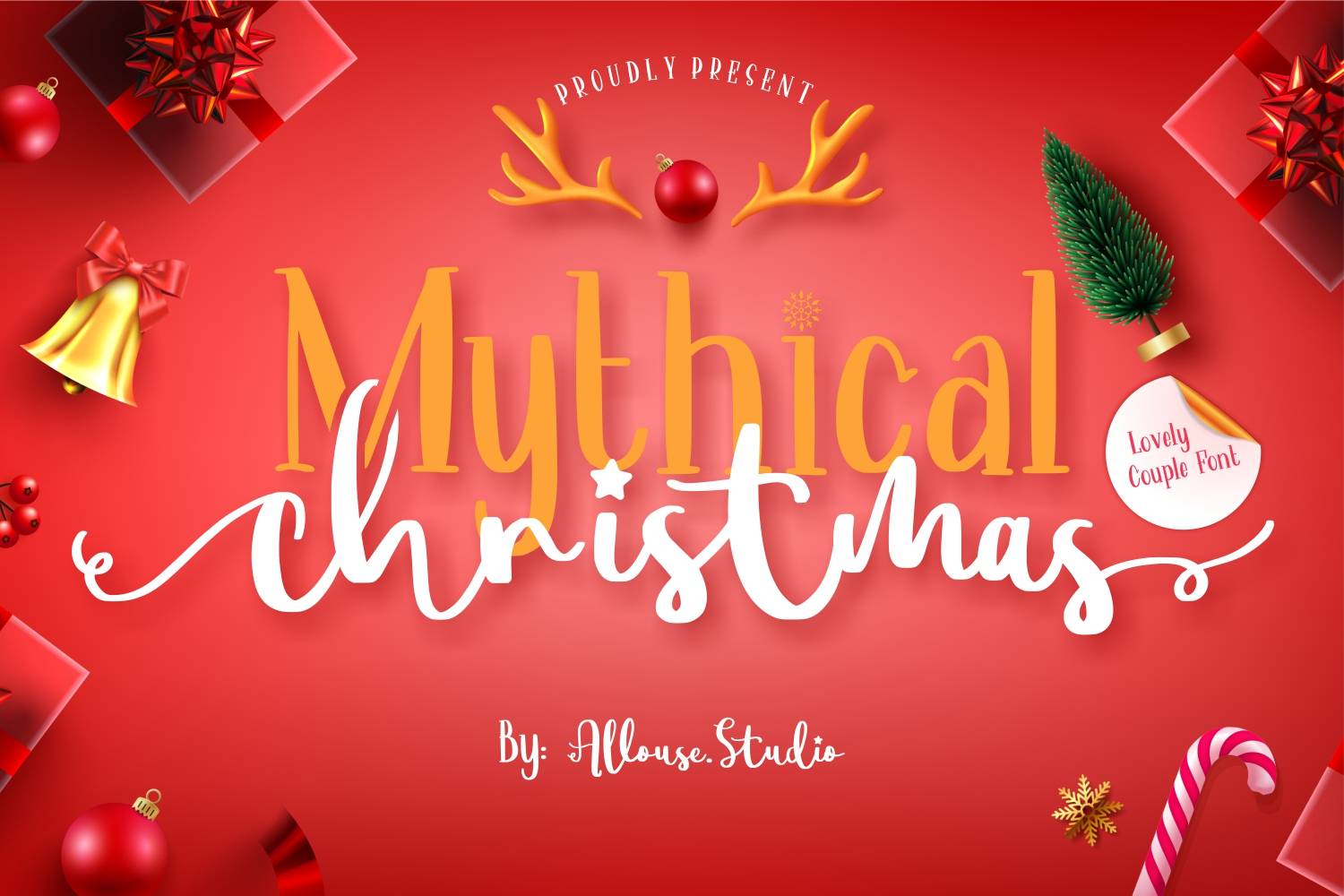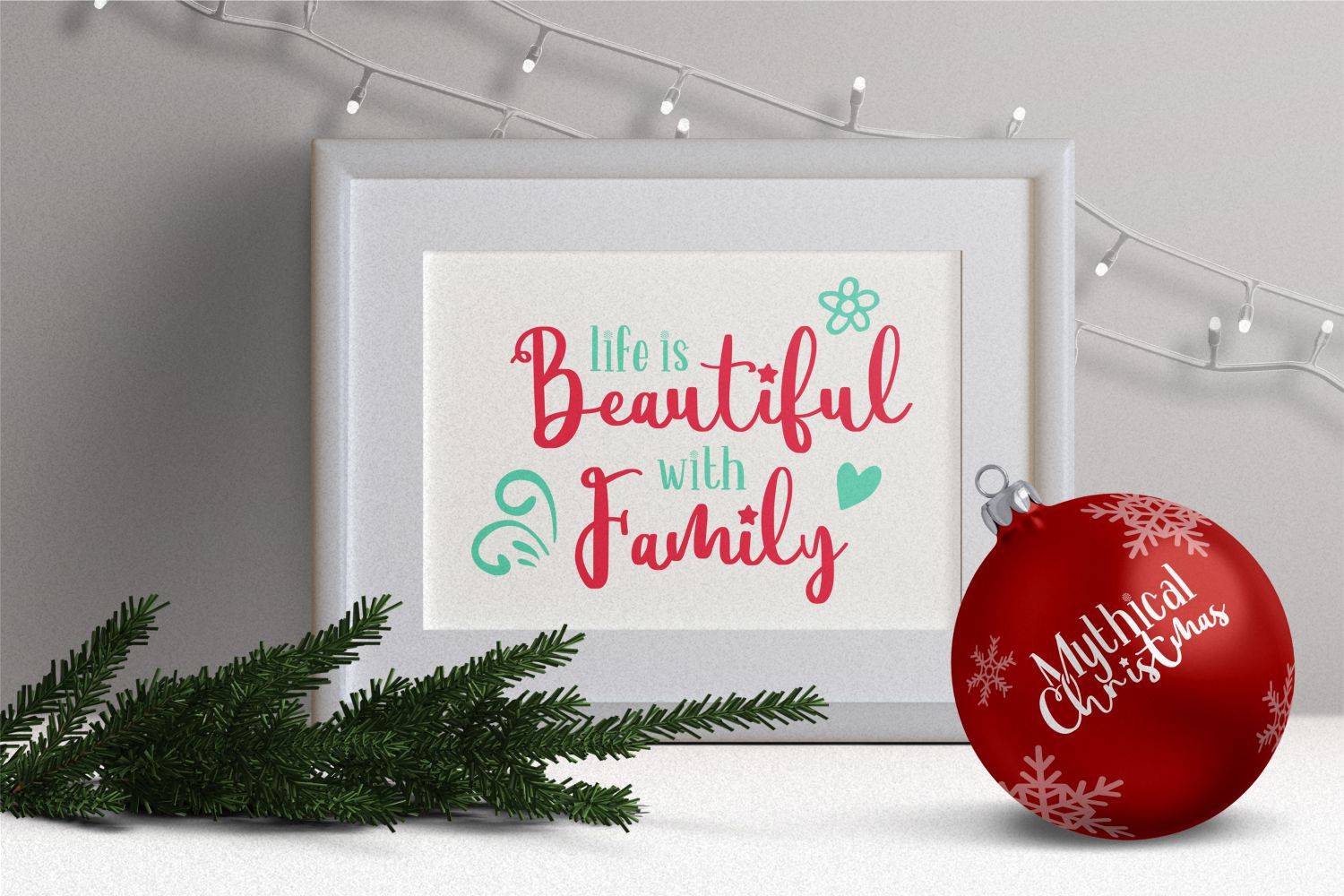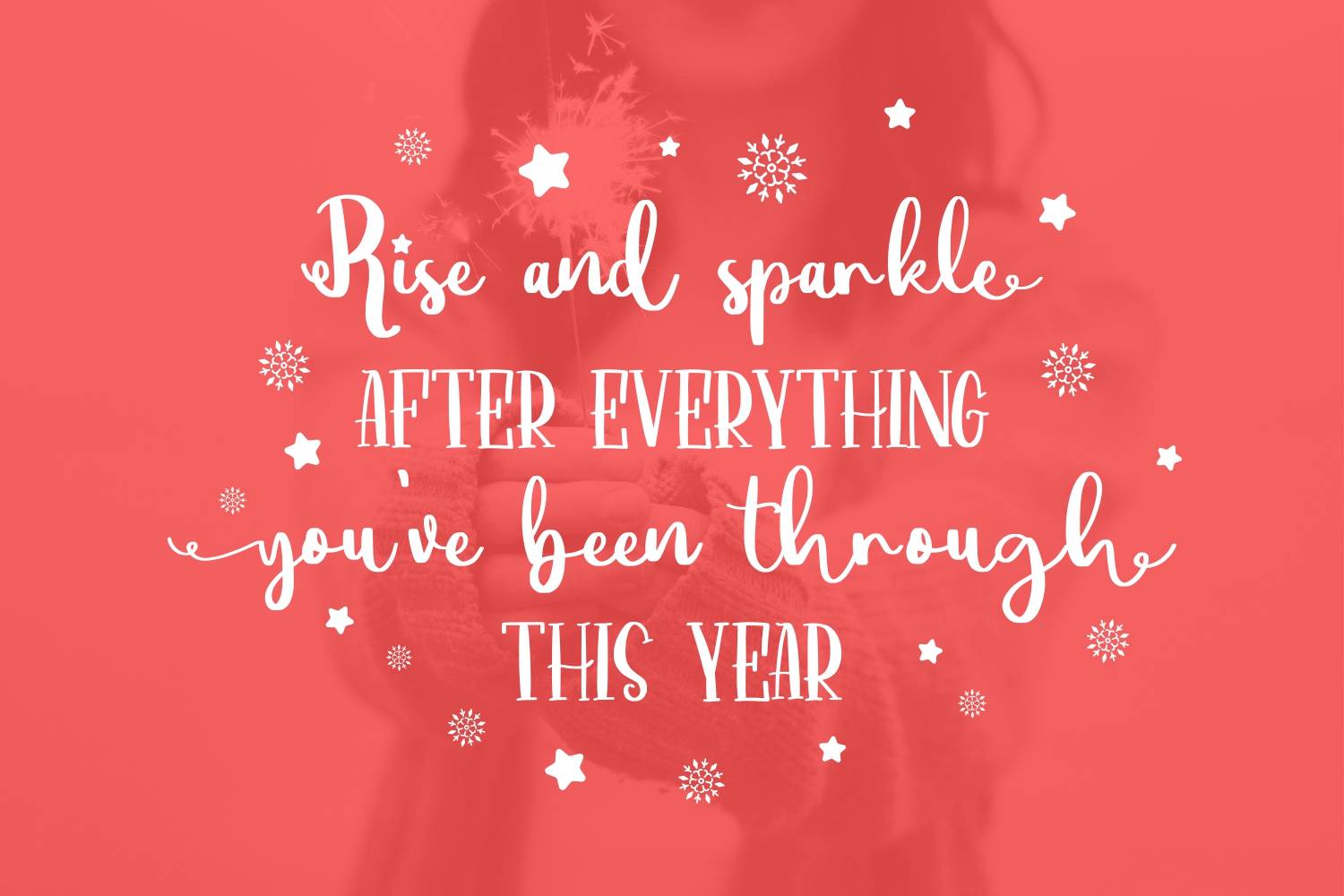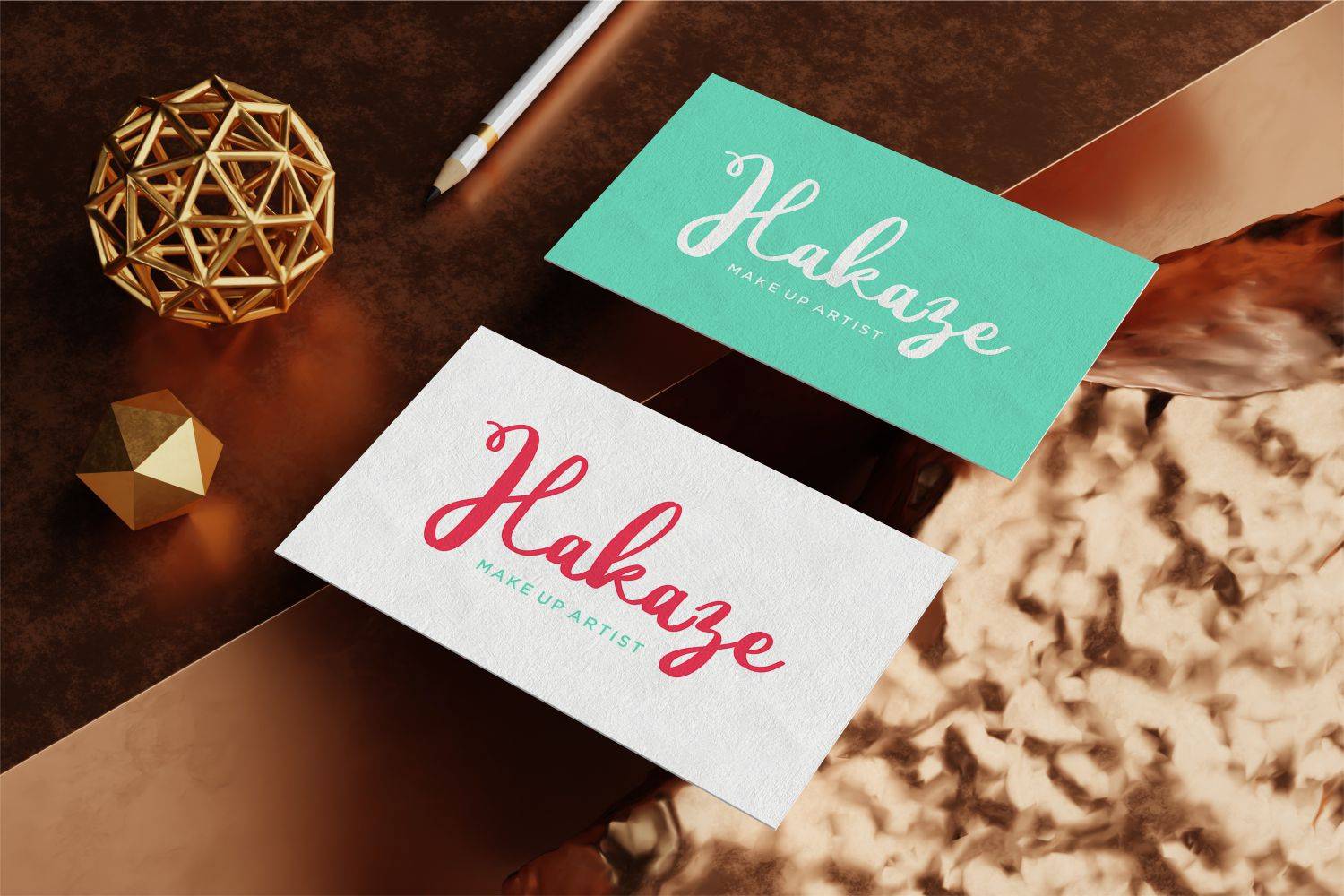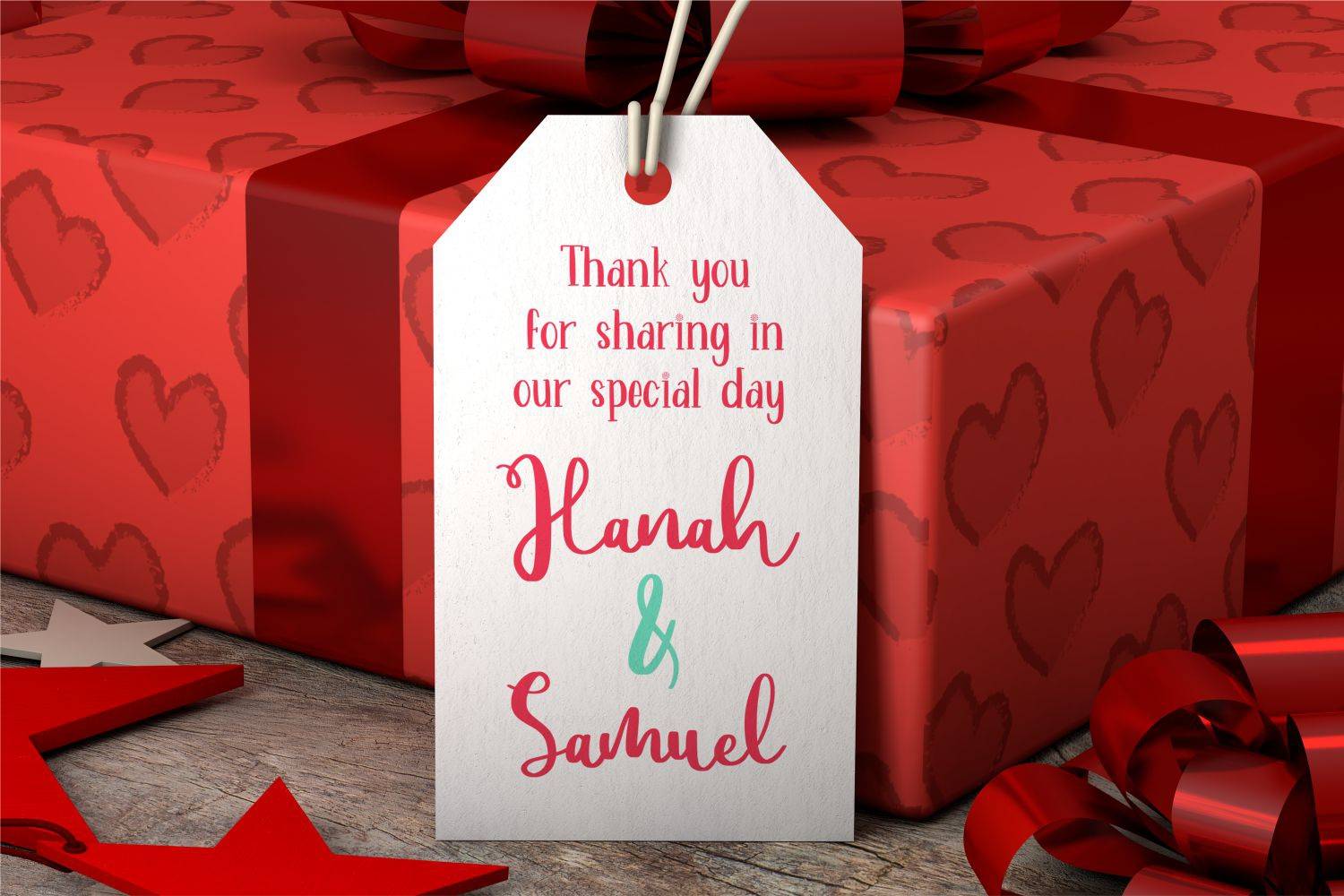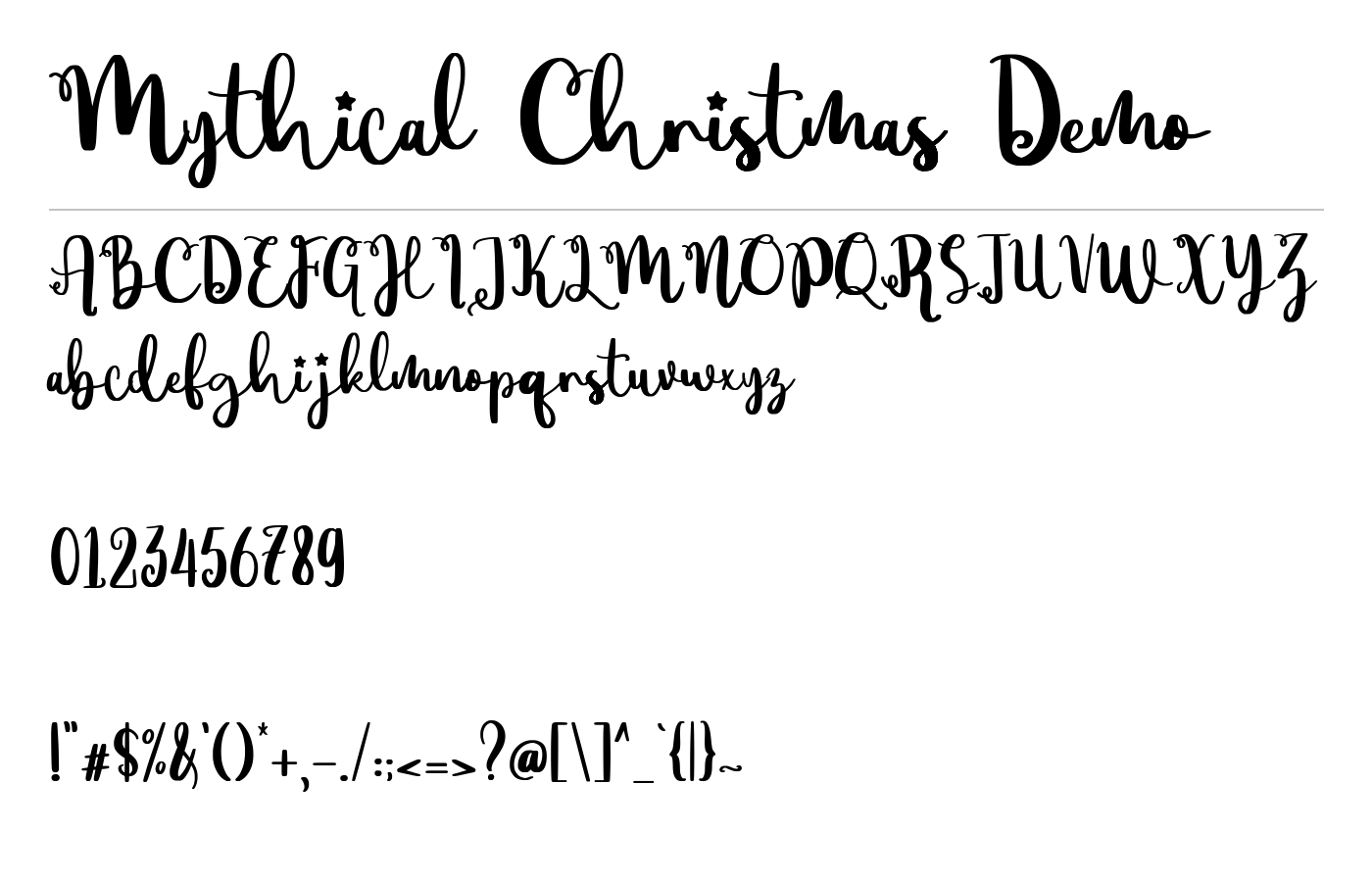
Mythical Christmas is a playful and whimsical script font that features tall, flowing letterforms with charming swirls and star-shaped dots, evoking a festive and magical feel. Its bold yet elegant strokes and unique decorative details make it perfect for holiday-themed designs, greeting cards, and festive branding that aim to capture a joyful and enchanting mood. This font works especially well in headlines and logos where personality and a touch of celebration are key.
Mythical Christmas